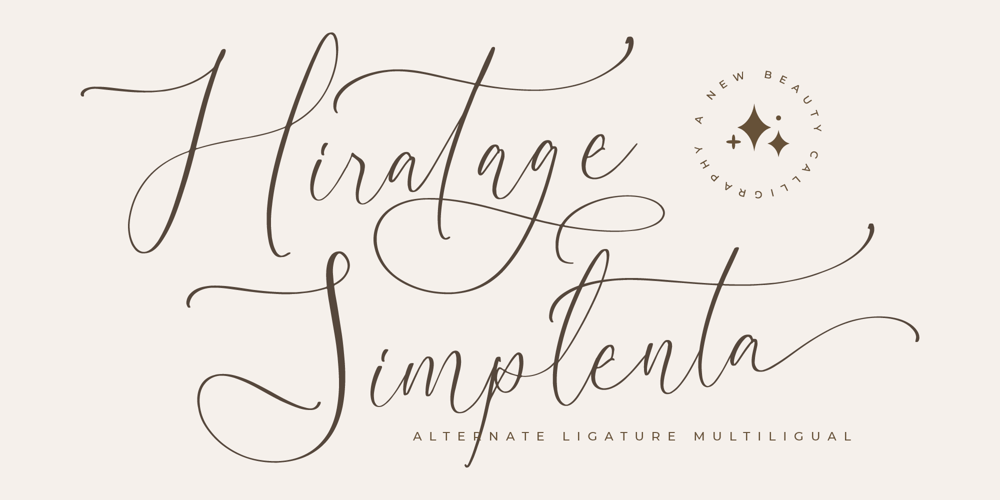
Hiratage Simplenta Font Family was designed by Heru Utama Putra and published by Letterena Studios. Hiratage Simplenta contains 2 styles and family package options. Proudly present Hiratage Simplenta – New Beauty Calligraphy , created by Storytype,A luxury script that has own unique style & modern look.This typeface is perfect for an elegant & luxury logo, book or movie title design, fashion brand, magazine, clothes, lettering, quotes, and so much more.